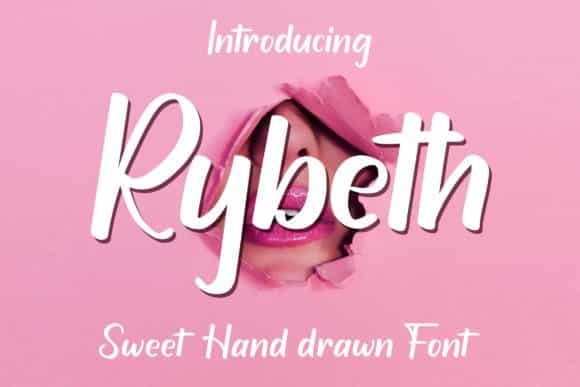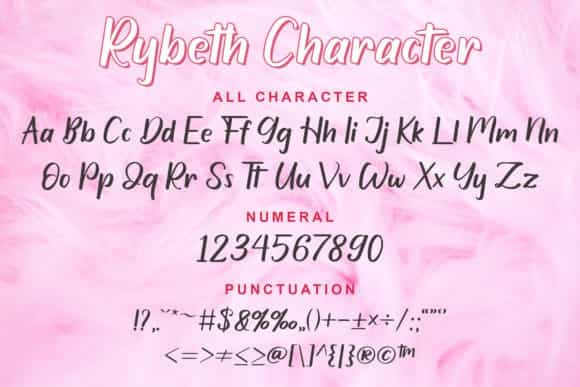
Rybeth Font is a casual brush script that has an informal, contemporary feel. Cover it with quotes and websites, and use the additional clipart to make designing so much simpler and more creative. Rybeth is full of ligatures which will give it that truly handwritten look.